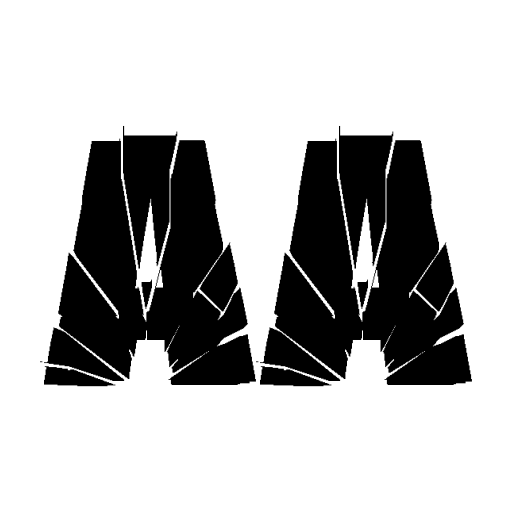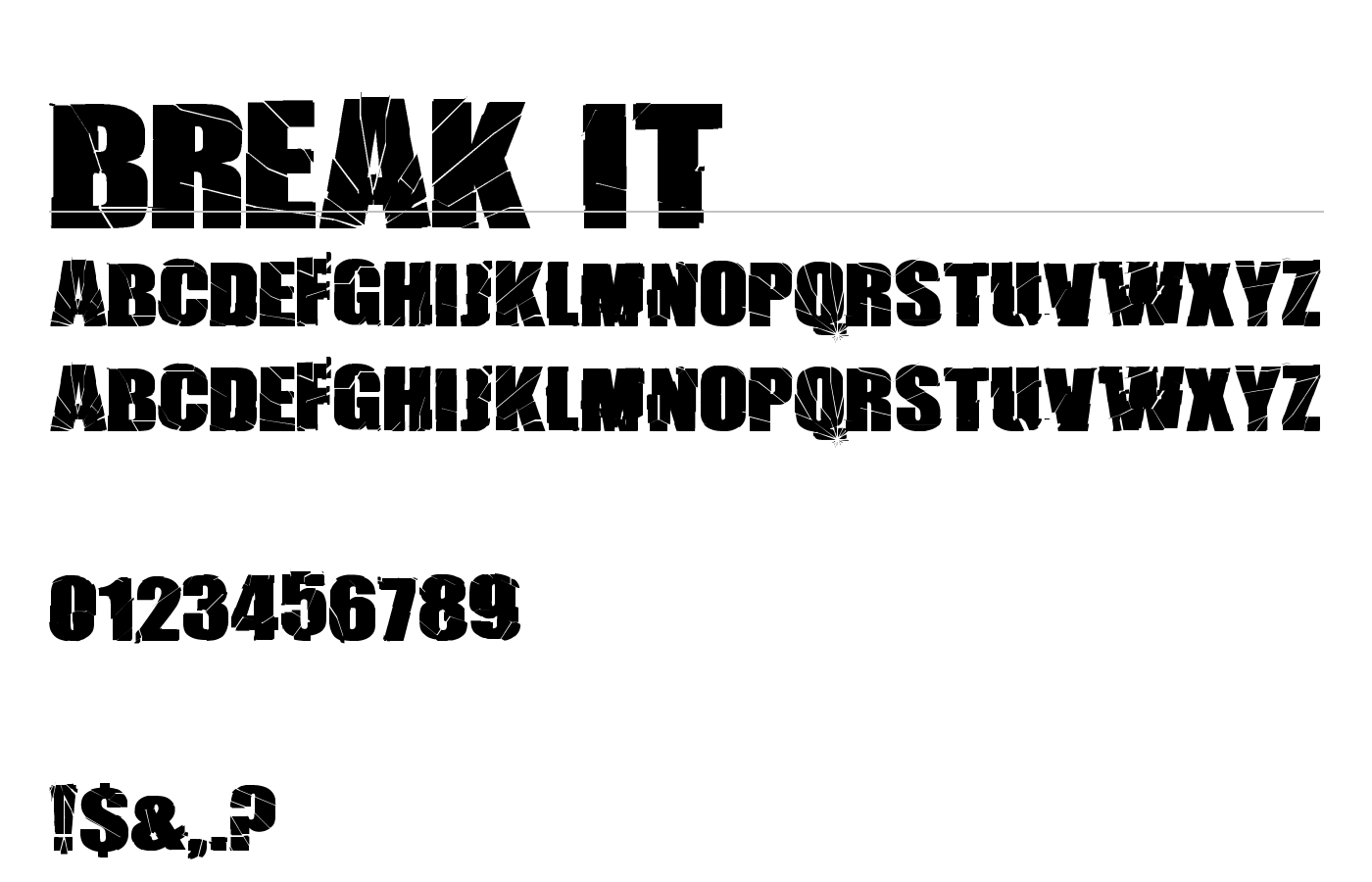
BREAK IT is a bold, condensed sans serif font with a striking shattered effect that gives the impression of cracked or broken glass. Its strong, heavy strokes and all-uppercase style make it perfect for attention-grabbing headlines, posters, and edgy branding where a dramatic, impactful look is desired. This font conveys a dynamic, rebellious energy suited for modern, urban, and experimental design projects.
BREAK IT Font